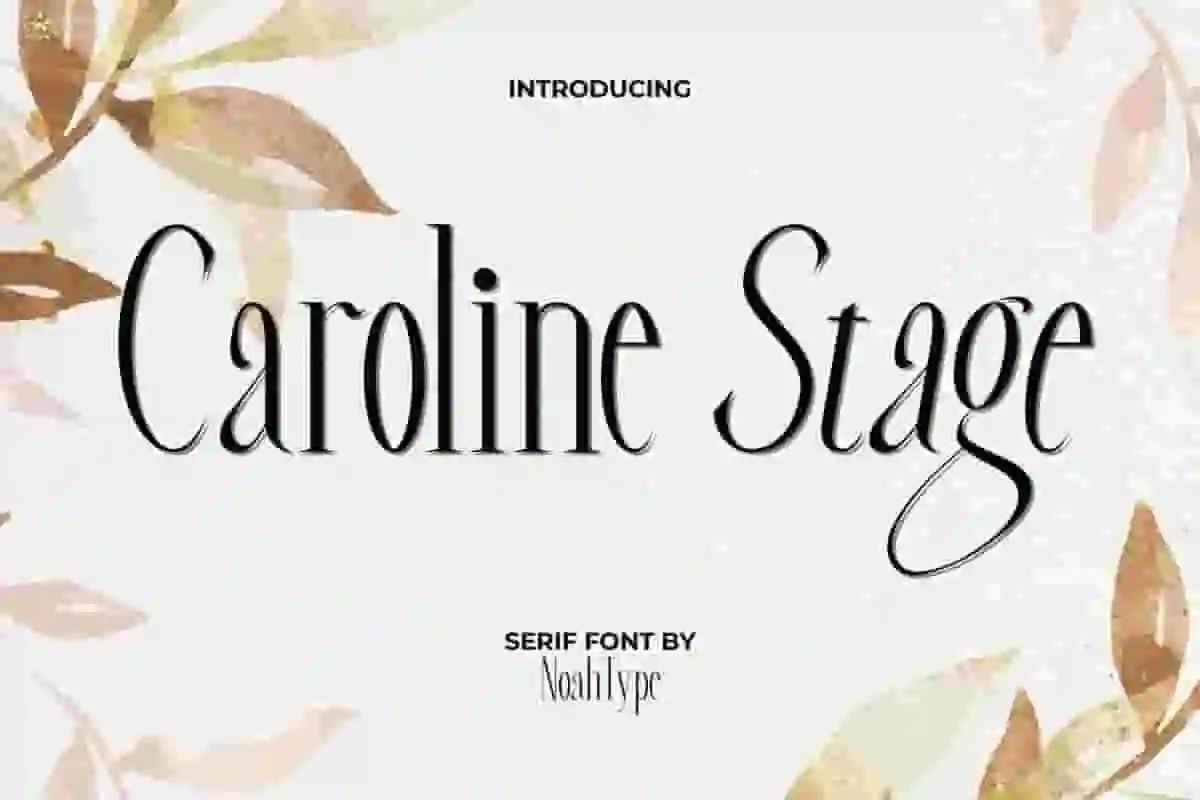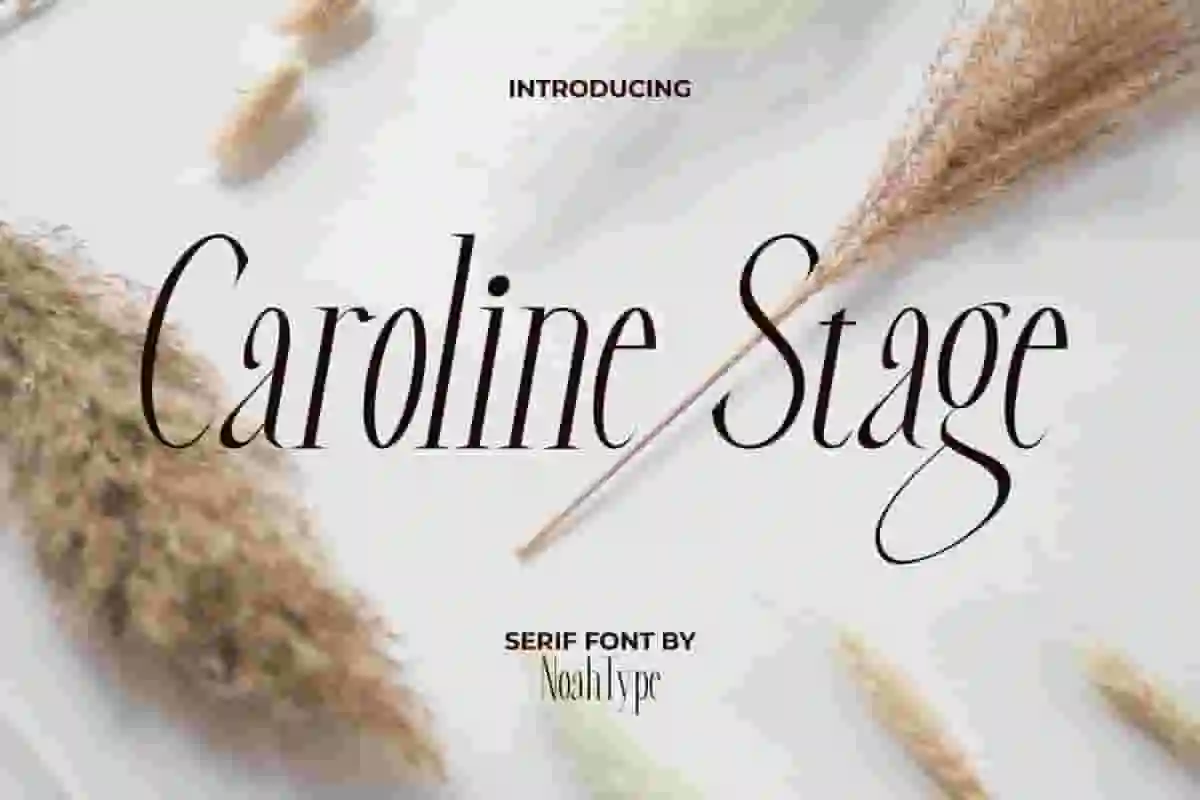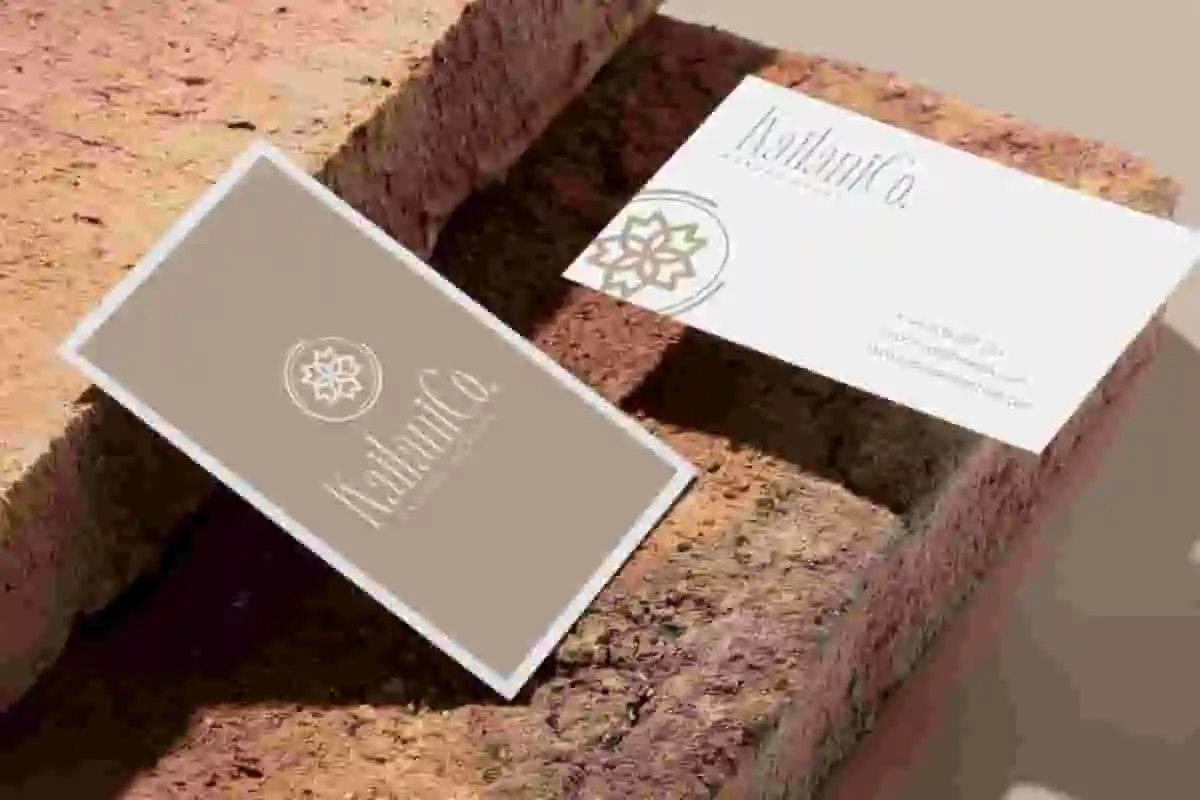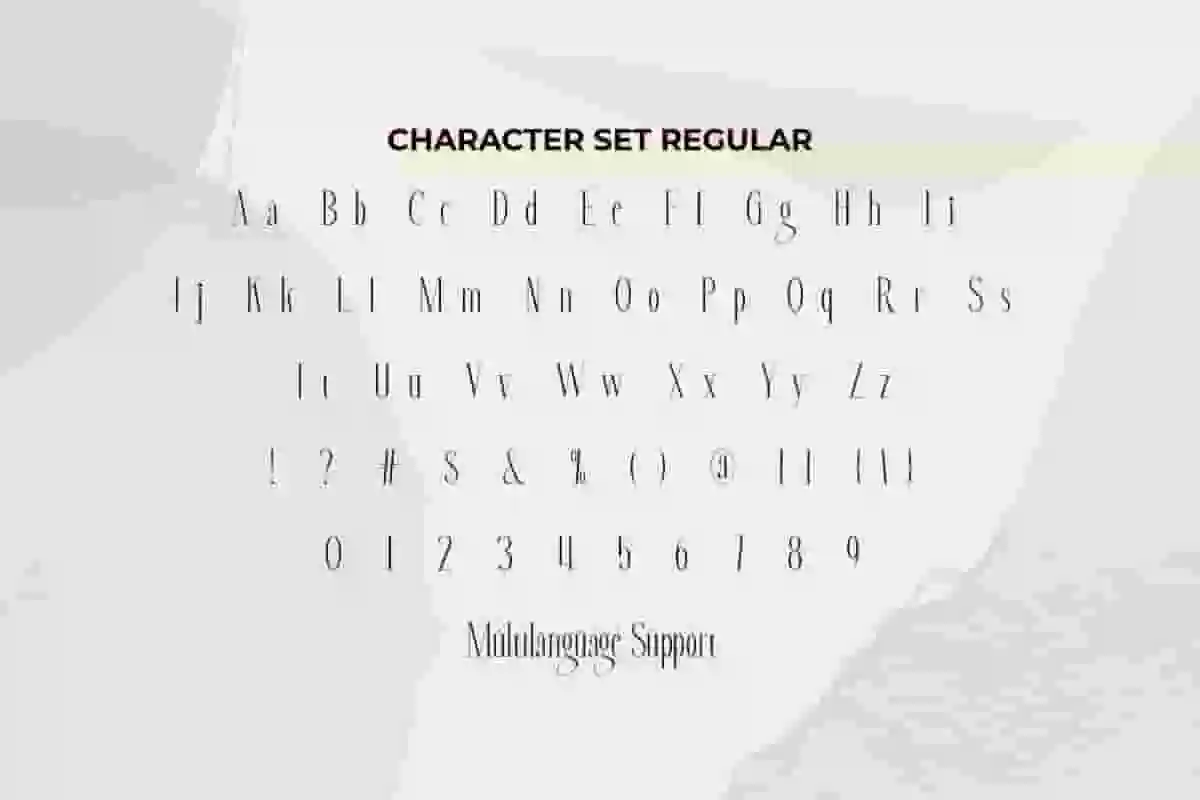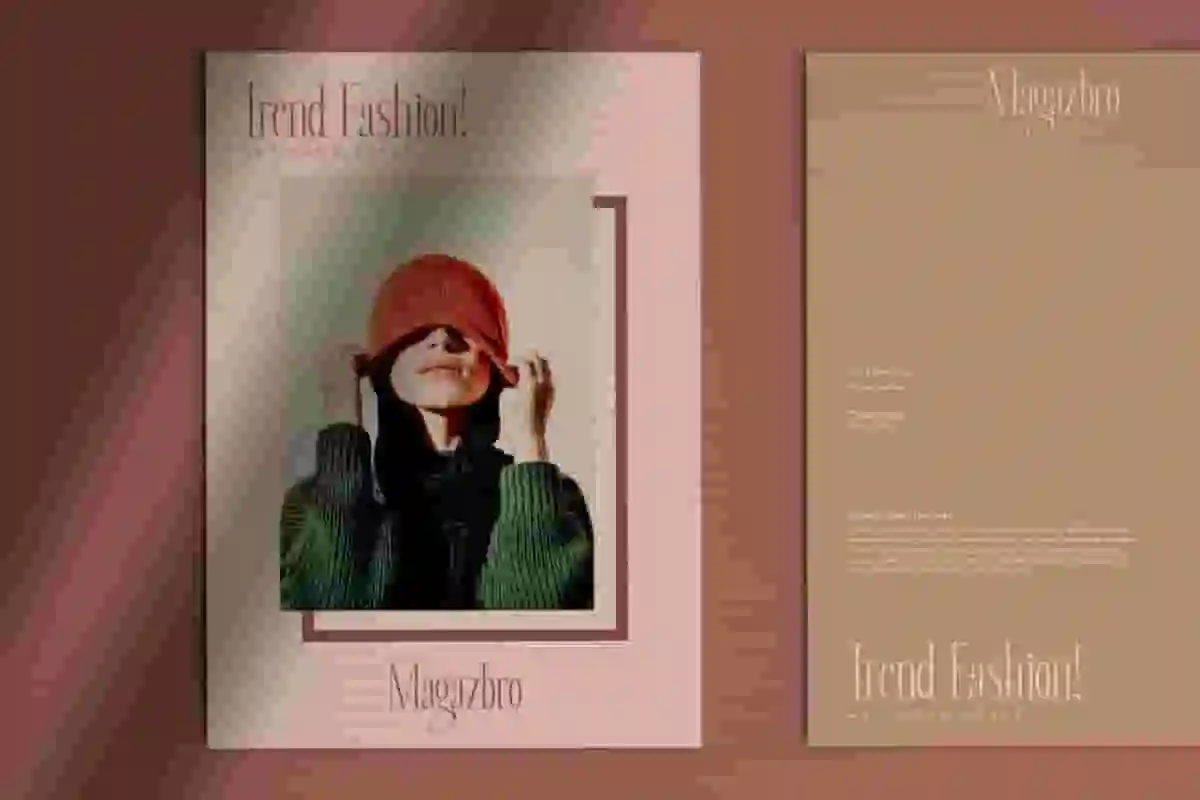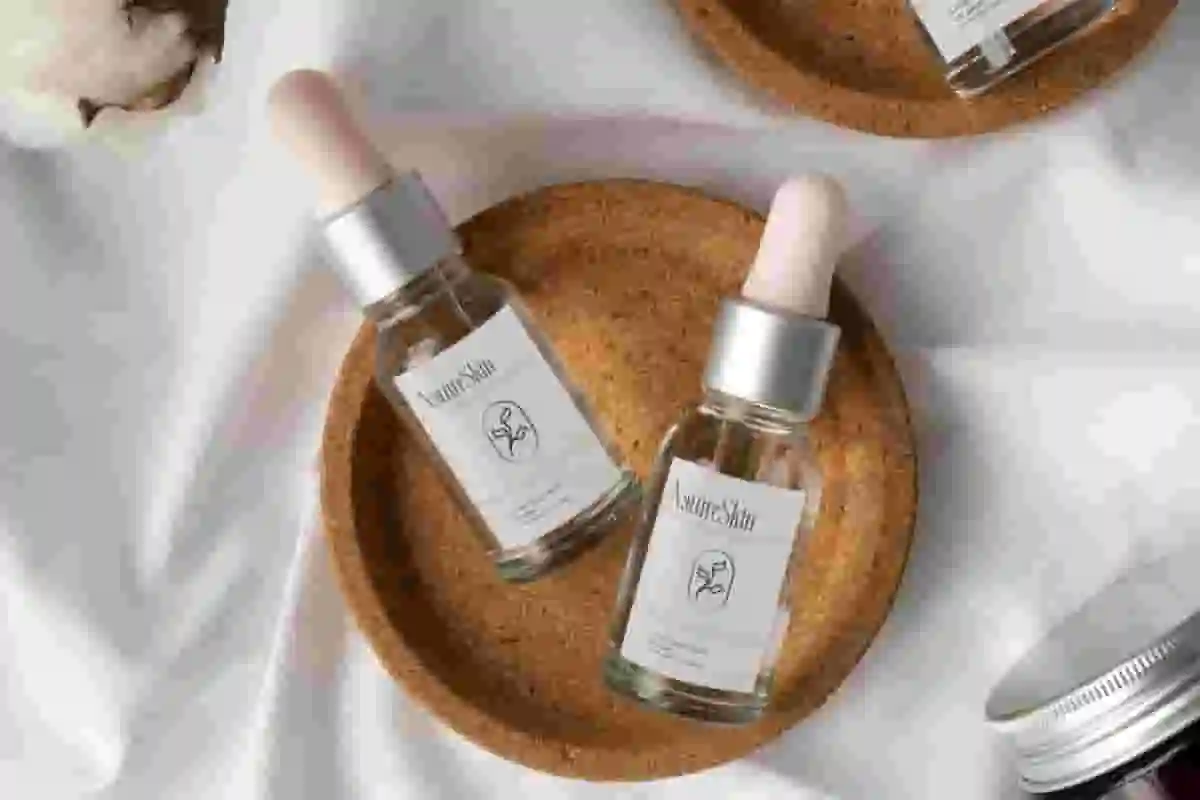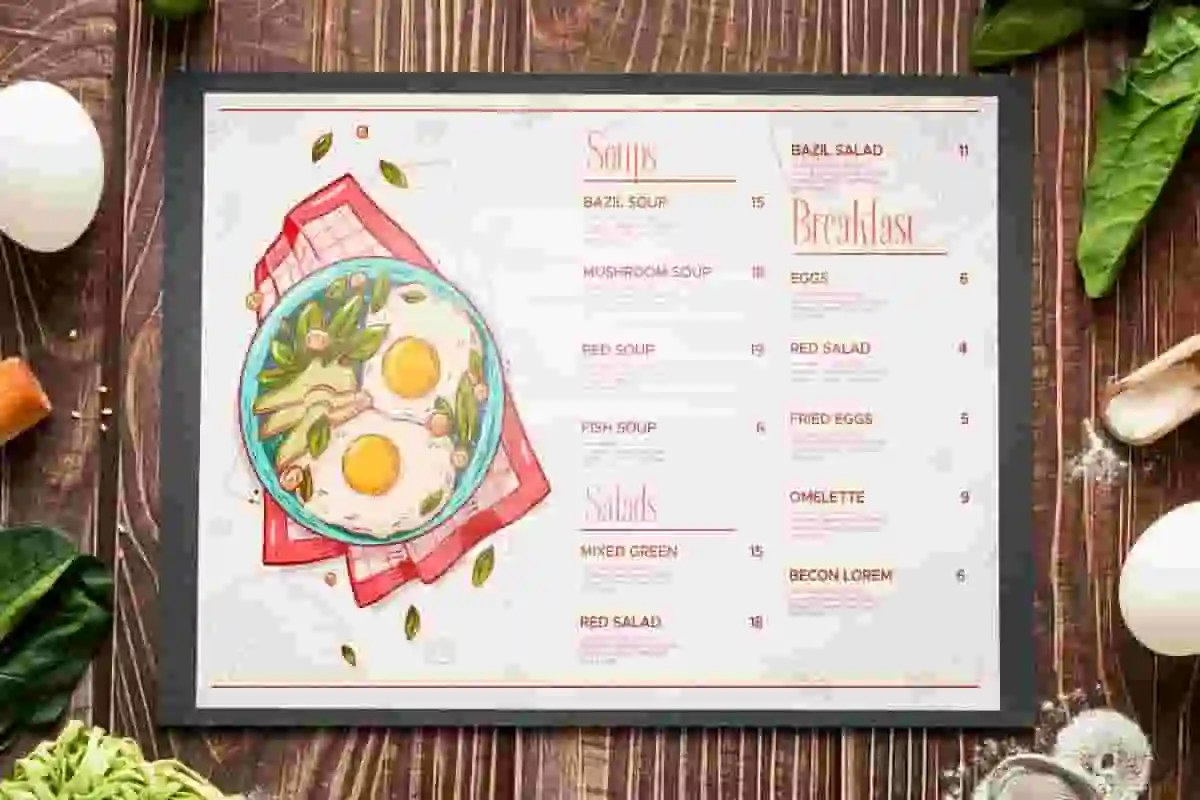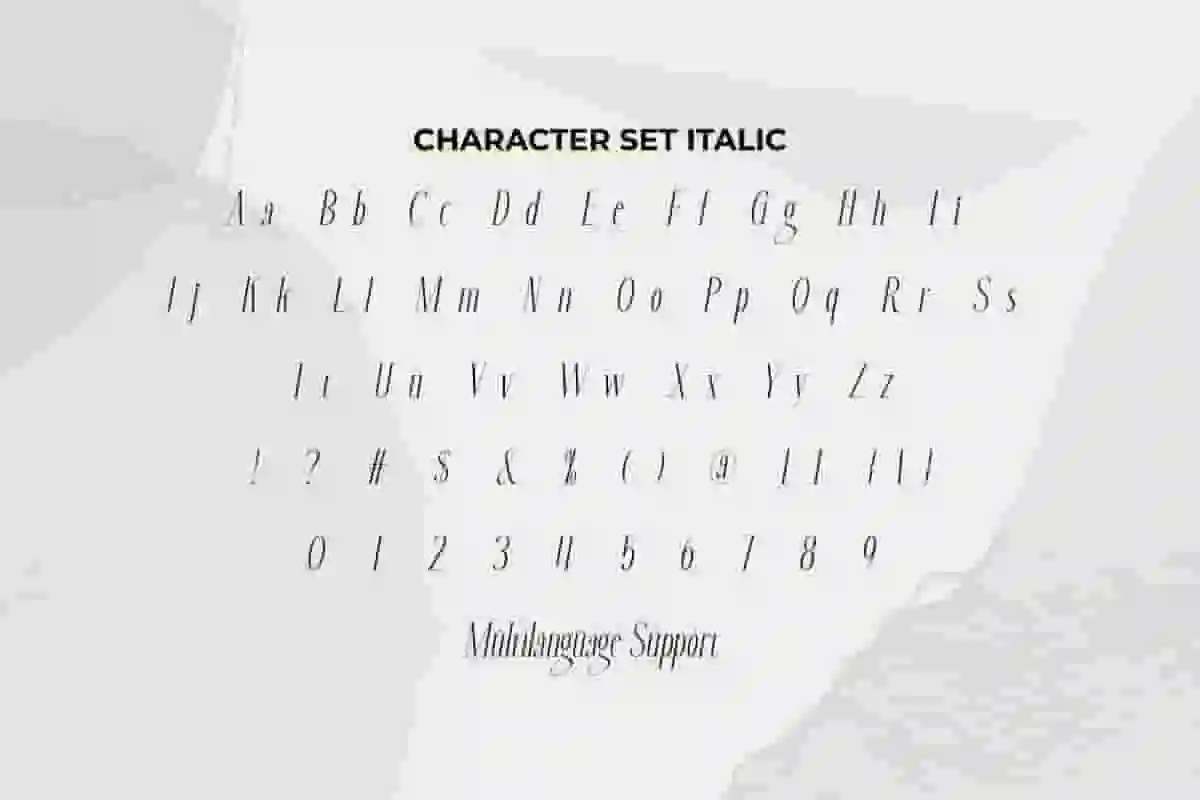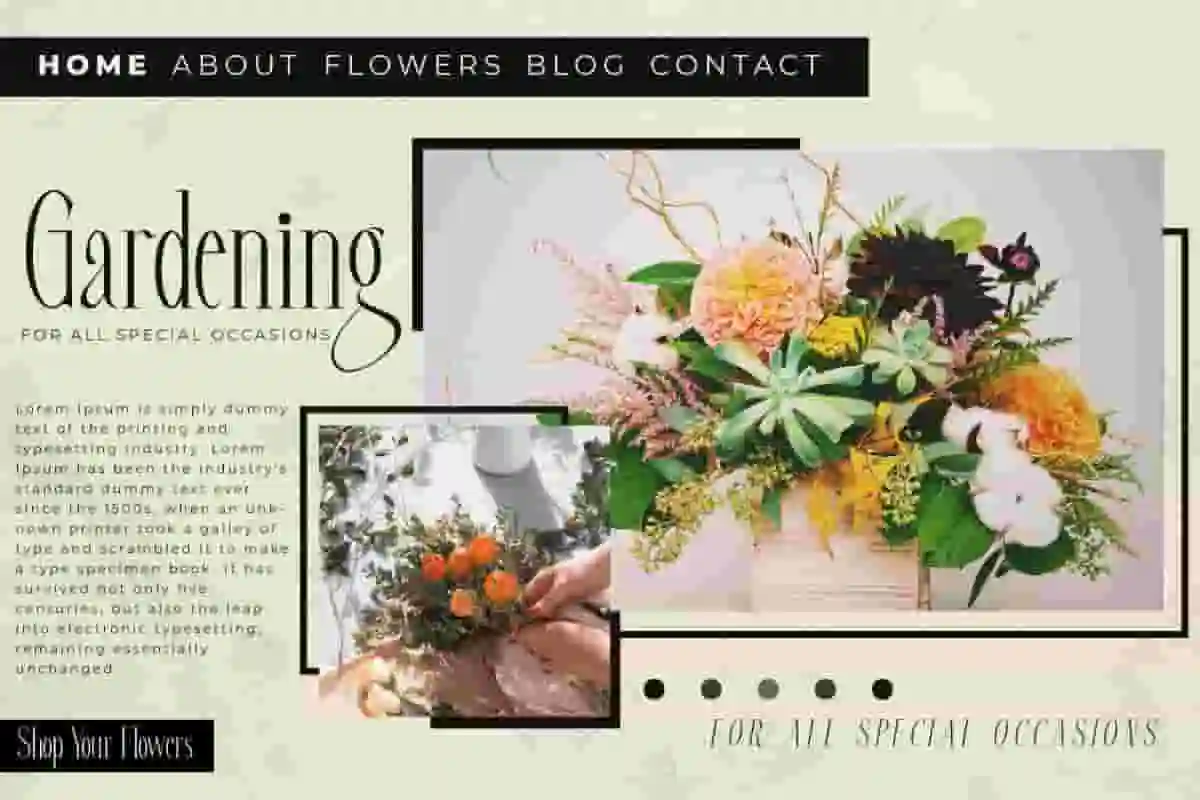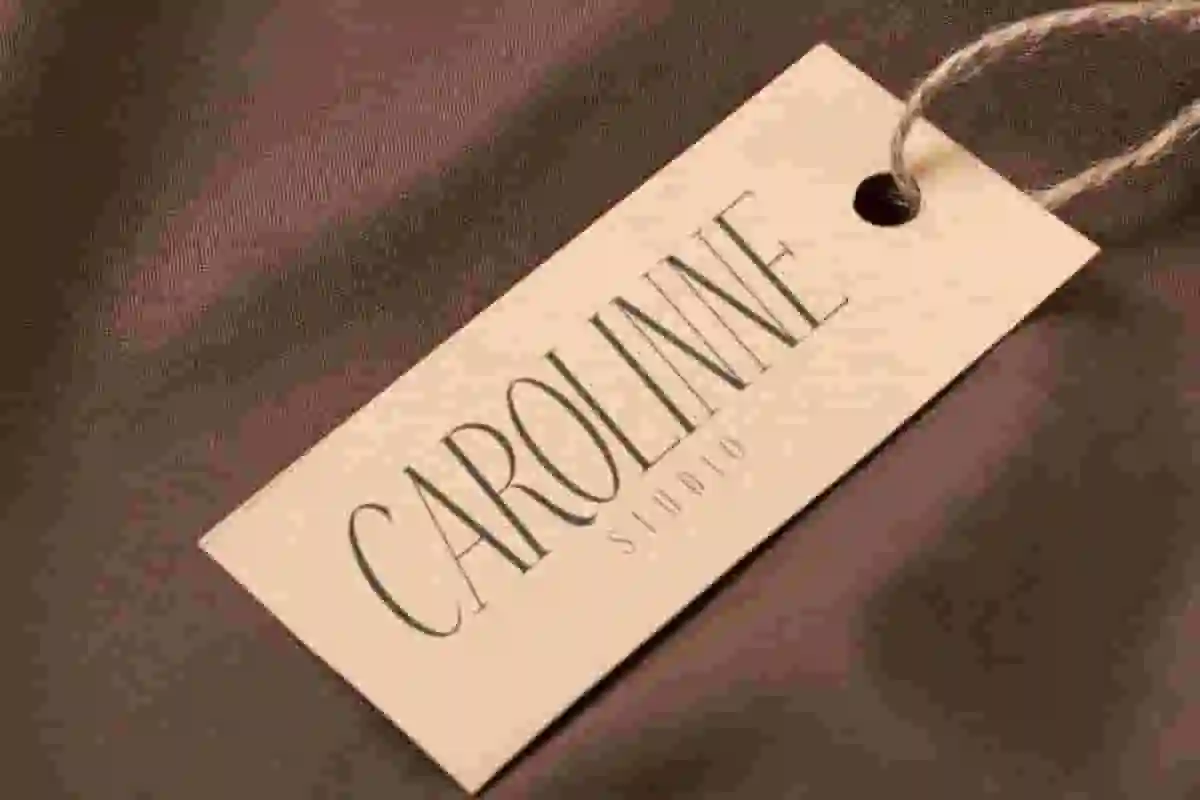
Caroline Stage Font is a stylishly elegant serif font with two styles : simple and italic, brought to you by NoahType. This font has lovely line shapes that flow beautifully in two different styles, regular and italic. It will be the best choice for fashion, beauty product, florist, restaurant, photography, publishing, printing, and more!
Caroline Stage Font include full set of All Caps Basic Characters, Numerals and Punctuation. Use this font to support your creativity in various designs, such as business card, signage, label, brand logo, product packaging, custom design, menu, cover, poster, web page, quote, etc.
With its refined letterforms and balanced proportions, Caroline Stage Serif is designed to make your text stand out while remaining easy to read. Whether you’re creating a luxury brand identity, stylish magazine spreads, or wedding stationery, this font delivers a touch of professionalism and class. Its versatility allows it to shine in both large headlines and small body text, making it an all-in-one solution for designers.